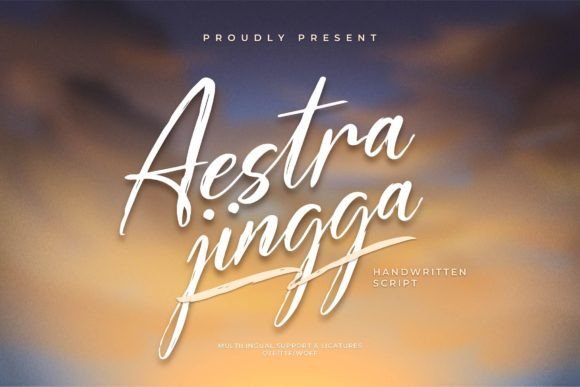
Handwritten Elegance: Discovering the Perfect Script Font
As a designer, have you ever struggled to convey a message that feels truly personal and authentic? You’re not alone. We’ve all been there, staring at a blank page, trying to find the perfect words to express ourselves. But what if the key to unlocking that perfect touch lay not in the words themselves, but in the way they’re written?
Enter the Aestra Jingga Font, a stunning handwritten script font that captures the essence of natural handwriting. With its smooth, flowing letters, this font adds a personal and elegant touch to any project, making it perfect for invitations, quotes, or any design that needs a stylish, handwritten feel. For designers, the Aestra Jingga Font is a valuable asset, offering a unique way to connect with their audience on a deeper level.
Aestra Jingga Font Key Features
- Font Style: Script font, with a unique and elegant design.
- Character Set: Includes a wide range of characters, including Latin, Cyrillic, and Greek alphabets, making it suitable for multilingual projects.
- Unique Characteristics: Features a distinctive, hand-painted look with intricate details and subtle texture, adding a touch of elegance to any design.
Aestra Jingga Font Review
I recently had the chance to work with the Aestra Jingga font, and I must say it’s a unique and intriguing addition to any design project. Here are some of my thoughts:
- The font’s bold and playful nature makes it perfect for creative projects, such as branding, advertising, and editorial design.
- The Aestra Jingga font features a distinctive and eye-catching design that’s sure to grab attention.
- It’s highly customizable, making it easy to adjust to suit your specific design needs.
- The font may not be suitable for more conservative or traditional design projects, as its bold and playful nature may clash with these styles.
- The Aestra Jingga font may require additional adjustments to ensure it looks its best in certain contexts, such as small text sizes or on lower-resolution screens.
Overall, I think the Aestra Jingga font is a solid addition to any designer’s toolkit. While it may have some limitations, its unique design and high level of customization make it a great choice for creative projects. With a little practice and patience, you can unlock its full potential and create some truly stunning designs.
Aestra Jingga Font Practical Application Guide
Tips for Getting the Most Out of Aestra Jingga Font
Use Aestra Jingga Font for titles, headings, and other attention-grabbing text elements.
Pair Aestra Jingga Font with other fonts to create a unique and visually appealing design.
Experiment with different font sizes and colors to enhance the effectiveness of Aestra Jingga Font.
Aestra Jingga Font is ideal for:
Creative projects that require a unique and eye-catching font.
Branding and marketing materials that need
Alternatives to Aestra Jingga Font
Pacifico is a beautiful, elegant script font that is perfect for designs that require a touch of sophistication and luxury. It is ideal for use in branding, advertising, and editorial designs where a high-end feel is desired.
Comparison to Aestra Jingga Font: While both fonts have a similar script style, Pacifico is more elegant and refined, making it a better choice for high-end designs. Aestra Jingga Font has a more casual and playful feel, making it suitable for more relaxed designs.
Great Vibes is a modern script font that is perfect for designs that require a sense of energy and playfulness. It is ideal for use in branding, advertising, and social media designs where a fun and youthful vibe is desired.
For optimal readability, we recommend using the Aestra Jingga Font at a minimum size of 14pt with a line height of at least 1.5 times the font size. This will ensure clear readability on most screens and devices.